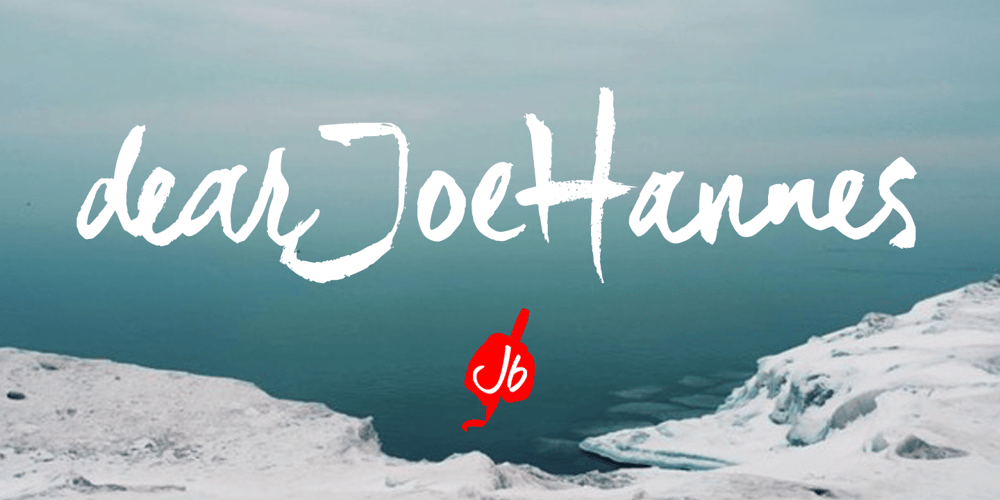
DearJoeHannes Font Family was designed by Jeroen “Joebob” van der Ham and published by JOEBOB graphics. DearJoeHannes contains 2 styles and family package options. A freely written handwriting font with a lot of ligatures added for credibility. The PRO version comes with Greek and Cyrillic glyph sets.